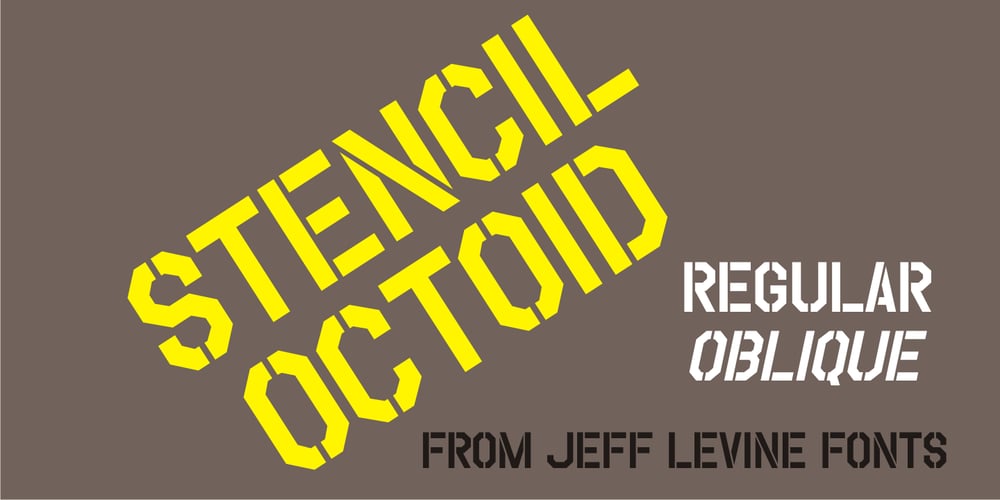
Stencil Octoid JNL
Stencil Octoid JNL font
Stencil Octoid JNL Font Family was designed by Jeff Levine and published by Jeff Levine. Stencil Octoid JNL contains 2 styles and family package options. Stencil Octoid JNL was inspired by a set of twelve inch tall stencil letters and numbers made by Duro Art Industries in Chicago. The bold type style with angled rather than rounded corners gives the font a strong feel of industry or military usage.